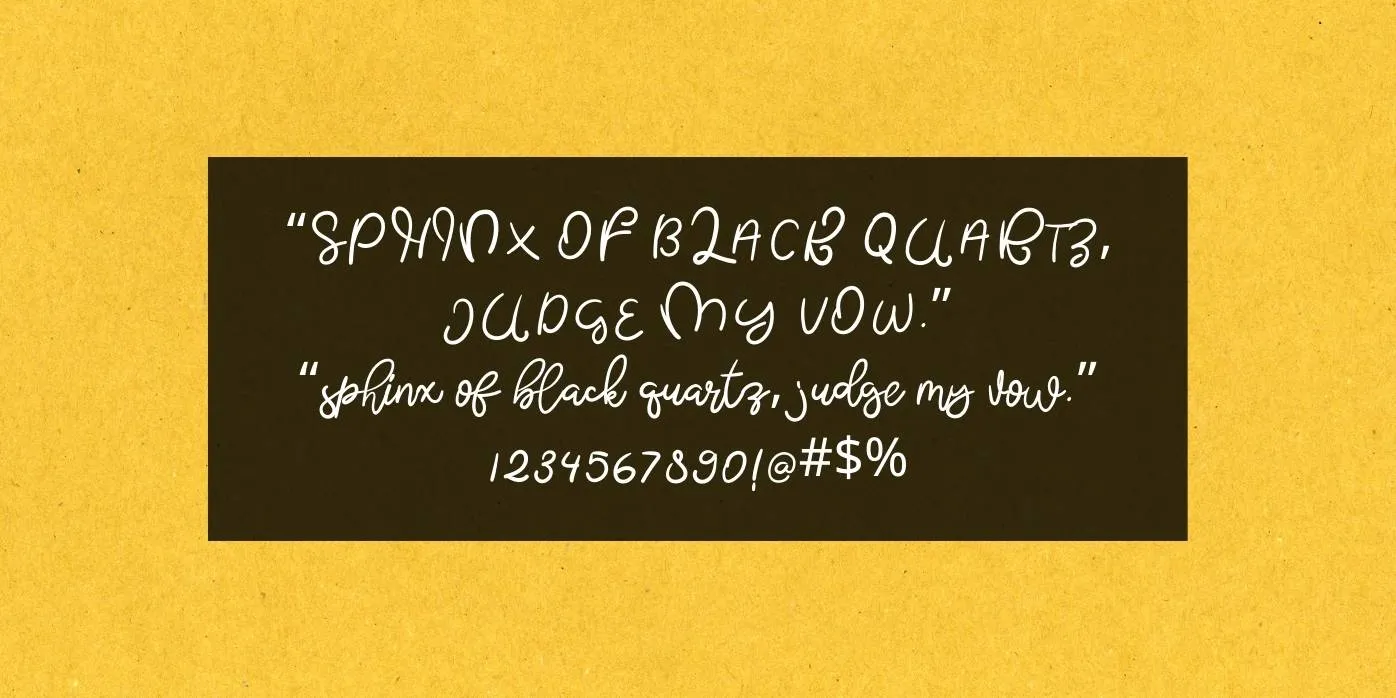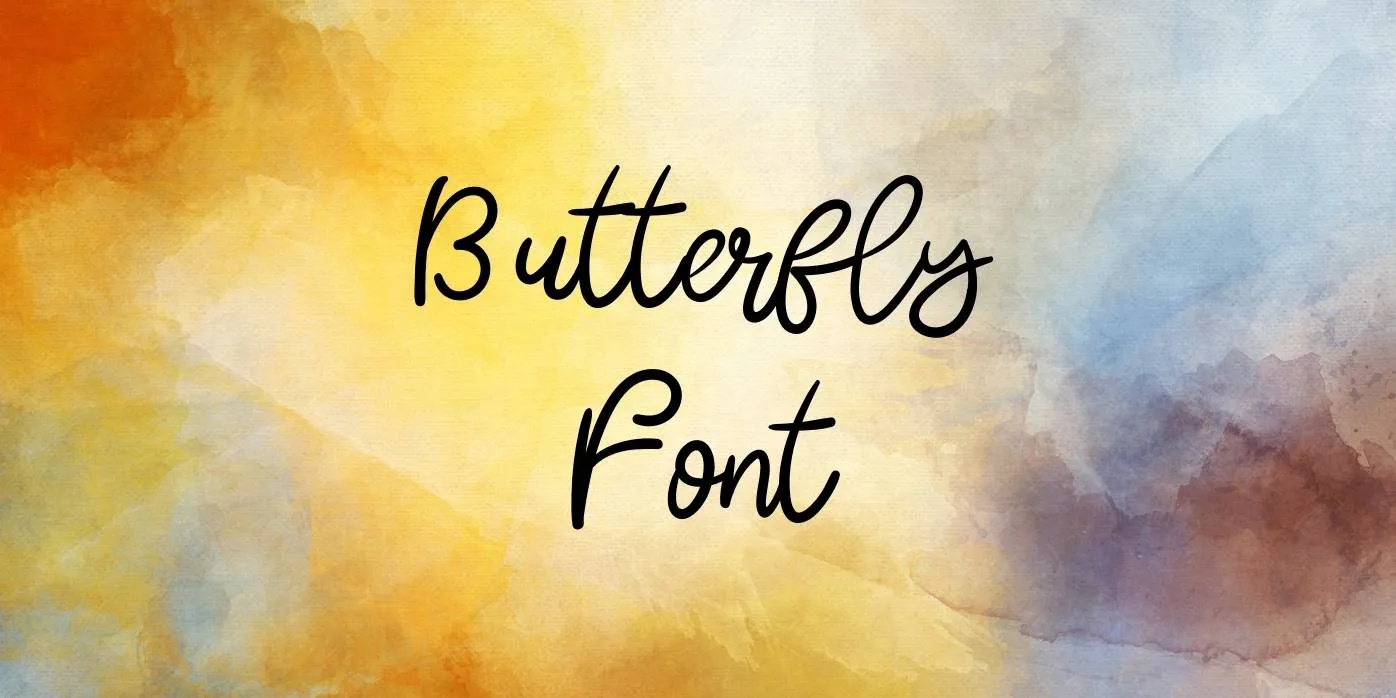
Butterfly Font
Butterfly Font is a script typeface designed by alphArtype.  It was inspired by the classic Americana style of Tattoo Lettering. The fonts come in three different weights; Regular, Bold, and Black. This awesome typeface is suitable for CSS. The Butterfly Font is perfect for any project that needs a touch of whimsy or a vintage feel.
This font would be great for invitations, branding, logos, and more. This family includes different styles of Butterfly Fonts such as Regular, Bold, and Black. Another similar font which is julias dream font is perfect for different designs. It is not available on google fonts.
Its generator tool is effective for your graphic projects. This typeface will provide glyphs for many languages including Latin, Cyrillic, and Greek character sets. Butterfly Typeface also supports OpenType features such as ligatures and alternative characters.